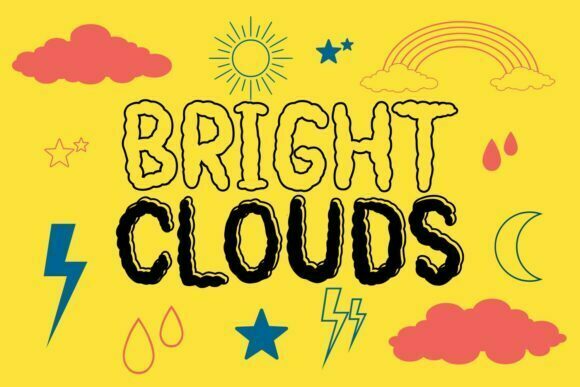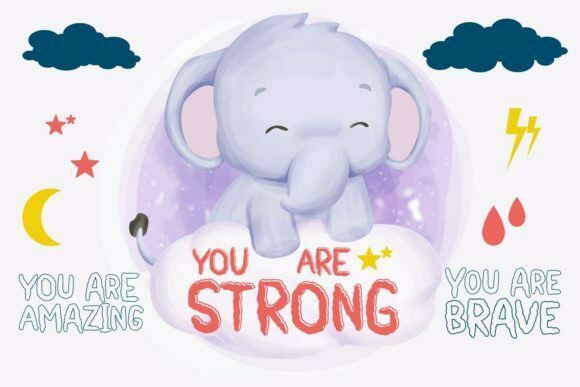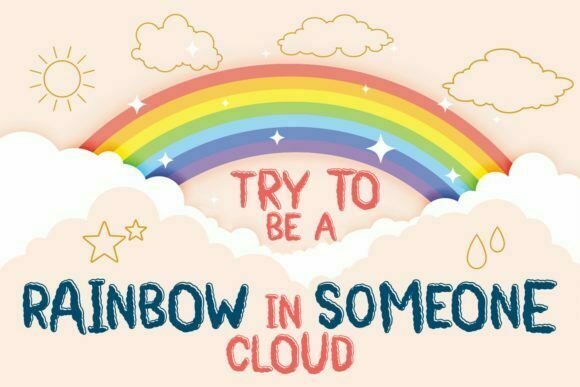
About Bright Clouds Font
Bright Clouds sounds like a delightful and whimsical dingbats font that can add a touch of cuteness and playfulness to your designs. With its beautiful clouds and suns, here are some creative ideas on how you can use Bright Clouds to bring a friendly and inspired look to your projects:
1. Kids’ Designs: Incorporate the cloud and sun dingbats from Bright Clouds into designs targeting children. Use them to create adorable illustrations, patterns, or decorations for children’s books, posters, clothing, or stationery. The friendly style of the font will enhance the overall playful and imaginative vibe.
2. Weather-Related Graphics: Bright Clouds can be a great choice for weather-related graphics. Use the cloud and sun symbols to represent different weather conditions such as sunny, cloudy, partly cloudy, or even rainbows. Combine them with relevant icons or text to create visually appealing weather forecasts, app interfaces, or social media graphics.
3. Greeting Cards: Design cheerful and whimsical greeting cards using the cloud and sun dingbats. Create a lovely sky-themed background with the clouds and add a smiling sun for a warm and friendly touch. Whether it’s for birthdays, baby showers, or just to brighten someone’s day, the playful nature of Bright Clouds will bring joy to your card designs.
4. Website Elements: Incorporate the cloud and sun symbols into website designs as decorative elements. Use them to create unique bullet points, dividers, or icons that reflect a lighthearted and friendly atmosphere. Whether it’s for a blog, children’s website, or any design that needs a touch of whimsy, Bright Clouds can add a delightful touch.
5. Scrapbooking and Craft Projects: Bright Clouds can be a fantastic asset for scrapbooking and various craft projects. Use the cloud and sun symbols as embellishments for photo albums, journaling, or handmade cards. They can also be used to create cute stickers, die-cuts, or stencils to personalize and add a playful touch to your crafts.
Let the friendly and whimsical style of Bright Clouds inspire your creativity and bring a touch of cuteness and joy to your designs. With its beautiful cloud and sun dingbats, the possibilities are endless for creating delightful and inspired visual projects.